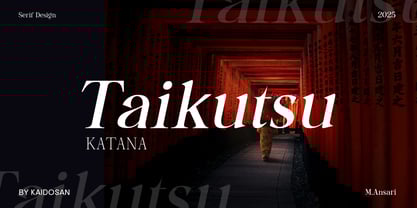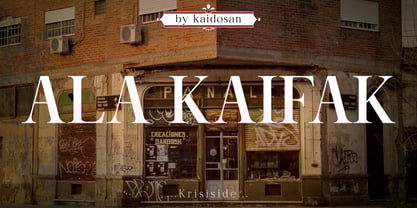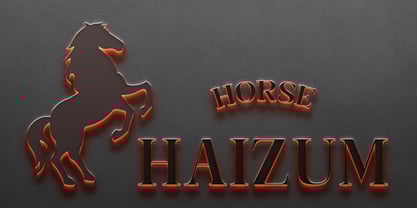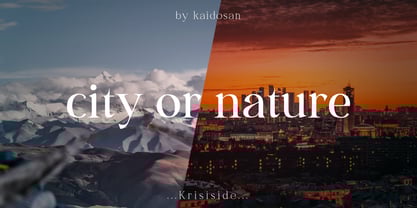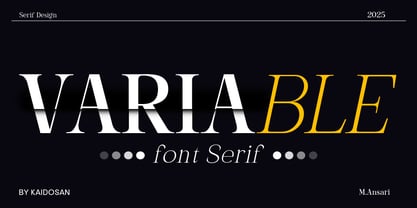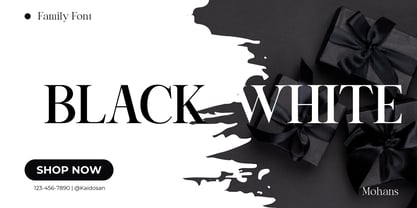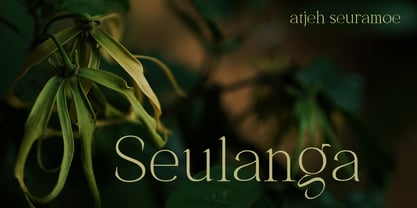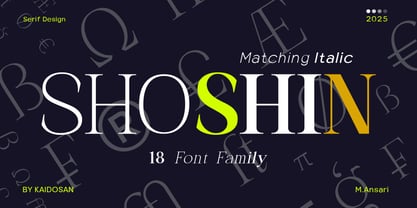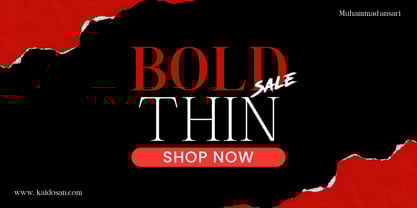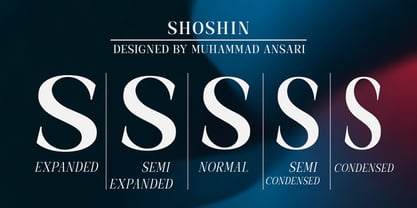
Shoshin
by Kaidosan
The Shoshin Font Family was designed by Muhammad Ansari and published by Kaidosan. Shoshin contains 88 styles and family package options.
SHOSHIN is a corporate-grade serif typeface engineered to communicate authority, credibility, and long-term stability. Combining timeless serif tradition with a precise modern structure, it delivers a confident visual identity tailored for financial institutions, corporate brands, consulting firms, and high-level business communication. Built with disciplined proportions and refined detailing, SHOSHIN ensures excellent readability across annual reports, investor presentations, corporate websites, and executive materials. Its character conveys trust, professionalism, and strategic clarity — essential qualities in the financial and business sector. More than a standard serif family, SHOSHIN is developed as a complete typographic system. It includes a fully functional Variable Font, offering smooth control over weight and width to adapt seamlessly across complex brand ecosystems. From subtle body text refinement to strong headline statements, flexibility is built into every letterform. To support structured corporate layouts, SHOSHIN also features extended Condensed and Expanded families. The Condensed styles are ideal for data-dense reports and editorial grids, while the Expanded styles create powerful, high-impact headlines for branding and executive communication — all while maintaining consistent brand integrity. SHOSHIN is not just a typeface — it is a strategic visual asset designed for organizations that value precision, authority, and professional excellence.